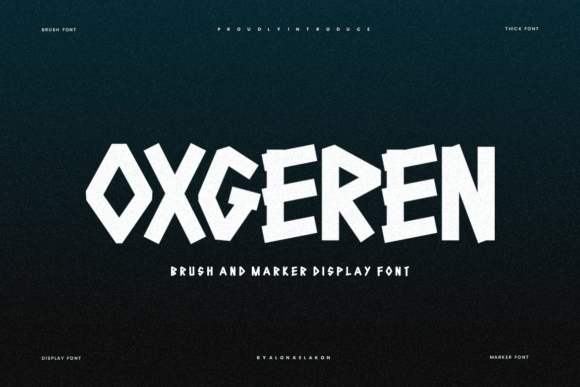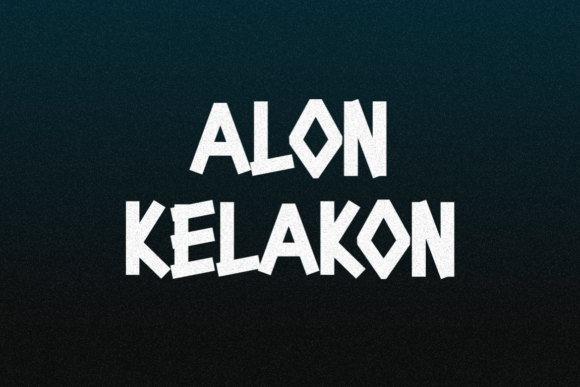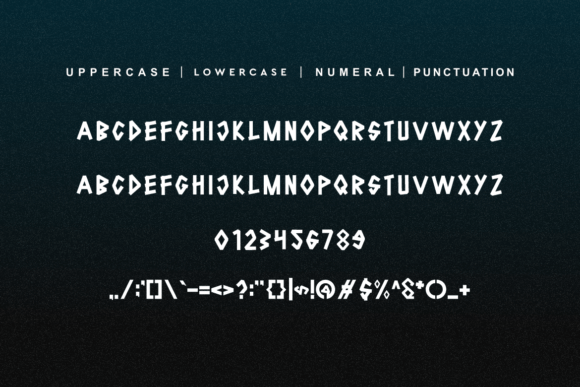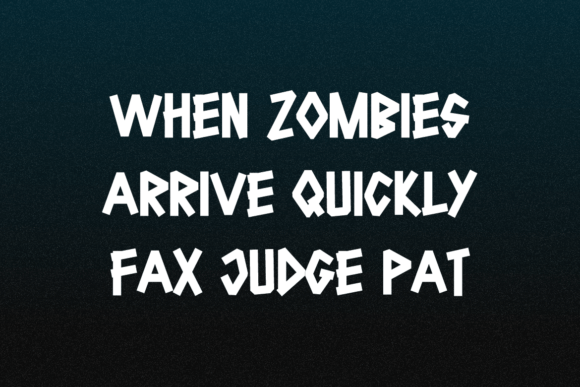
Oxgeren Font: A Unique Brush Display Font for Creative Logo Design
About the Oxgeren Font
Elevate your designs with Oxgeren Font, a font that combines sophistication with readability. Oxgeren is a unique and interesting font. A little bit quirky, this font looks incredibly adept on a wide variety of contexts!
Oxgeren’s quirky nature makes it ideal for headlines, short texts in branding materials, and eye-catching posters. Its unique character shines in applications where it can command attention, such as logos or short, impactful slogans. However, its distinctive forms are less suitable for body text or lengthy paragraphs, where readability is paramount. Avoid using it in UI or other contexts requiring high levels of legibility at smaller sizes.
Its playful energy is best complemented by pairing it with a clean sans-serif like Lato for a modern feel, or a classic serif such as Garamond for a more established, balanced look. A geometric sans-serif could also create a striking contrast, adding visual interest. The overall effect depends heavily on the pairing and the context, offering considerable flexibility.
Oxgeren projects a bold, friendly, and slightly unconventional personality. Brands targeting younger demographics, or those with a playful and creative approach, would find it particularly effective.
Oxgeren Font Example